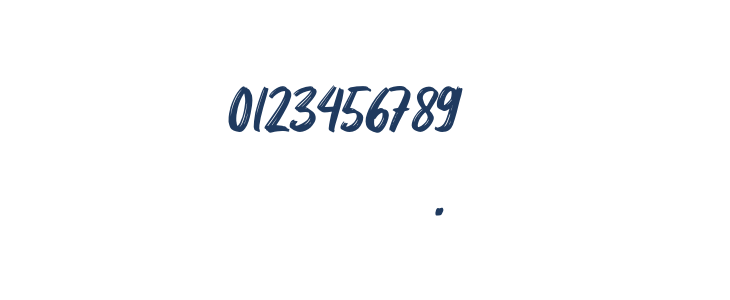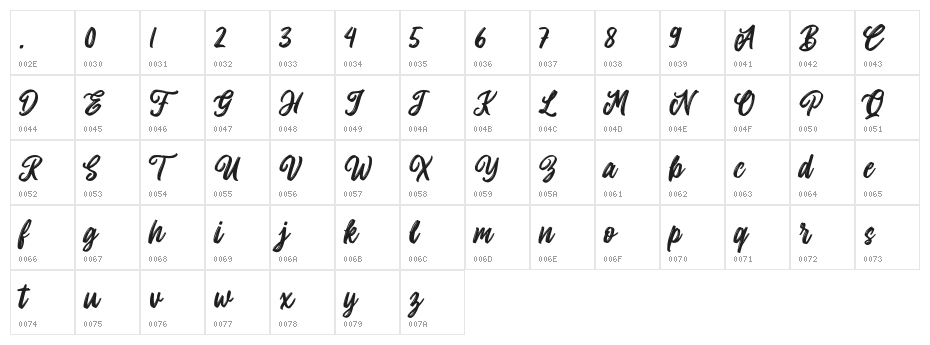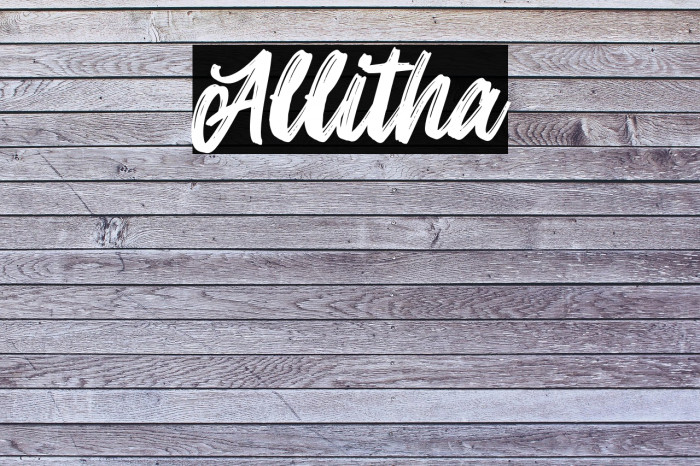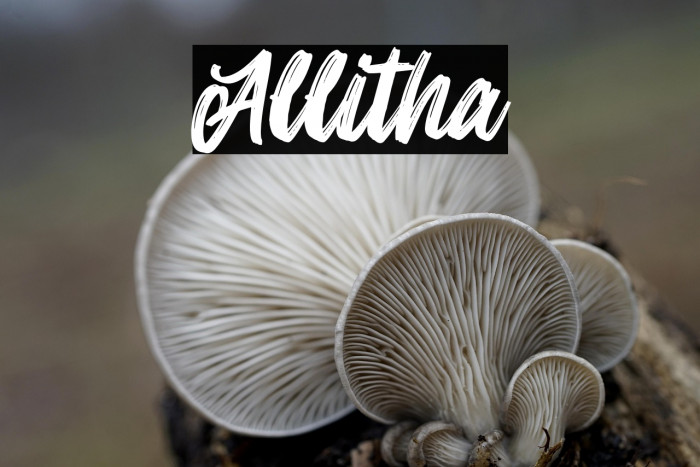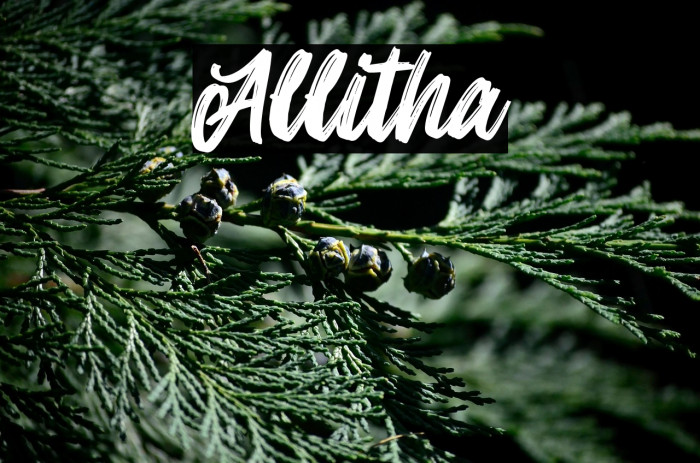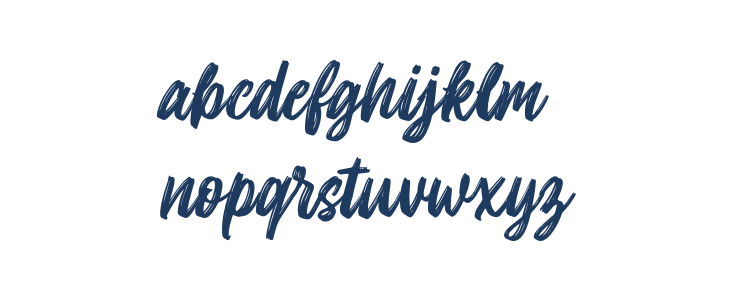
Allitha Font
Allitha Description
This font features a bold and expressive script style, characterized by its flowing, cursive letterforms. The strokes are thick and dynamic, giving it a lively and energetic appearance. The uppercase letters are particularly ornate, with flourishes that enhance their decorative quality. The lowercase letters maintain a consistent style, complementing the uppercase with their smooth curves and loops. Numbers and special characters are designed with the same attention to detail, ensuring a cohesive look across all elements. This font's strong presence makes it ideal for creating impactful designs.
| Use Case | Logos, Headlines, Invitations |
| Proposed Projects | Ideal for branding, invitations, posters, and any project requiring a bold, artistic touch. |